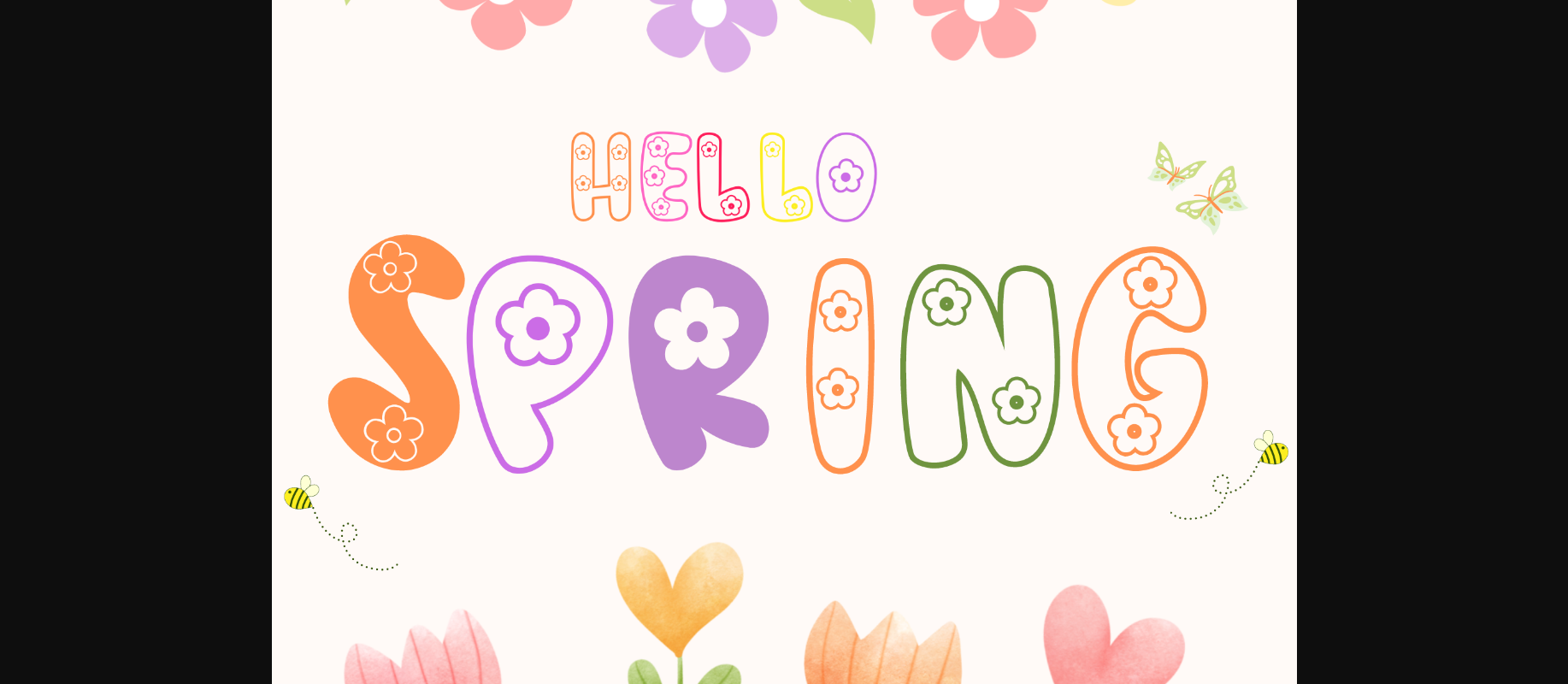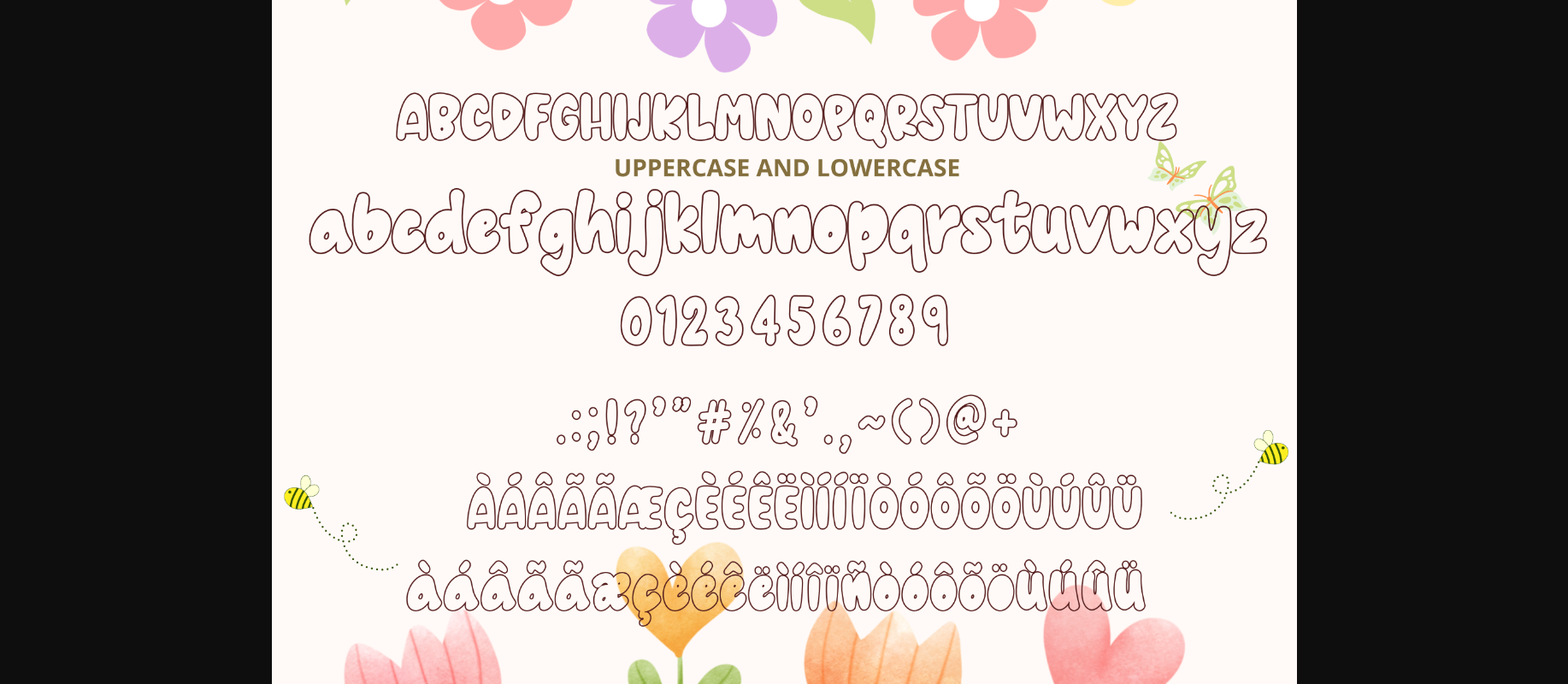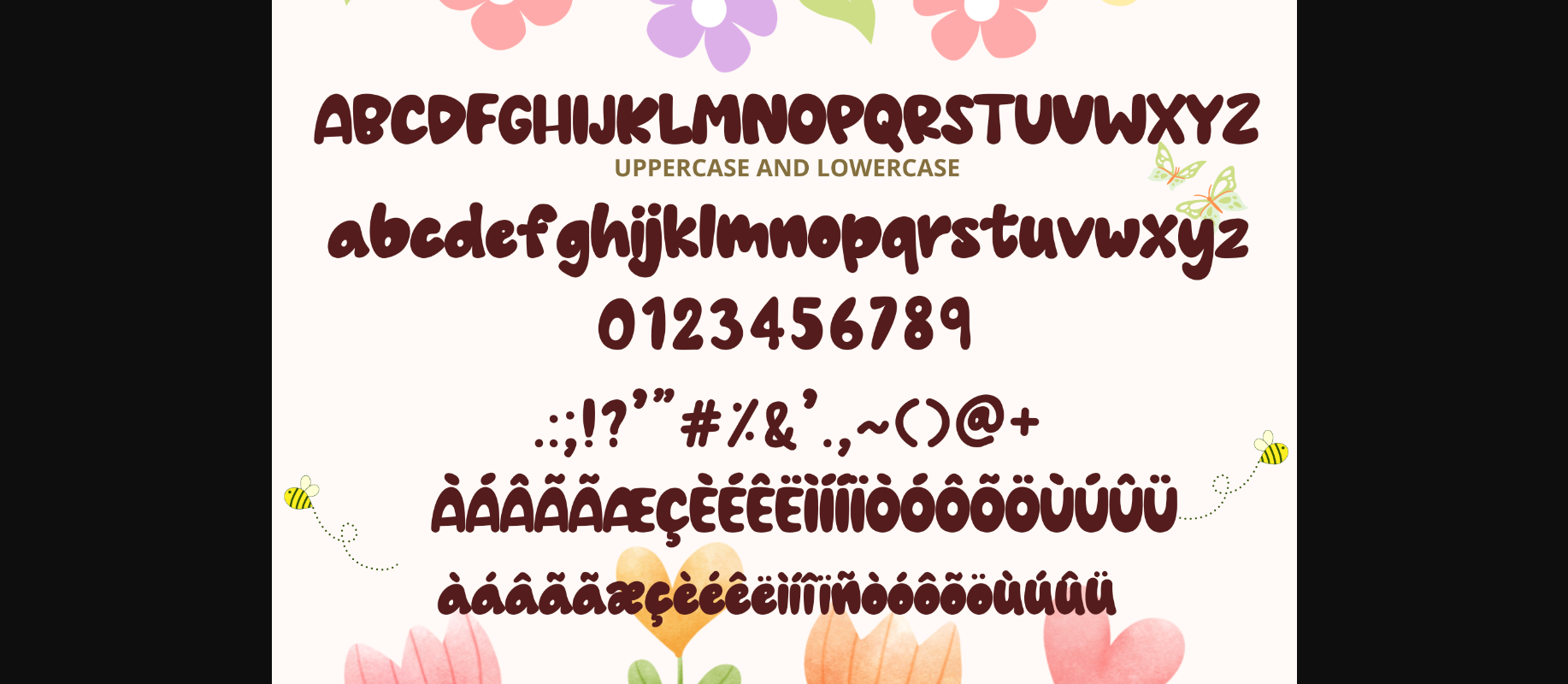
About Hello Spring Font
Hello Spring is a charming and delightful font with enchanting flowers. This adorable font captures the essence of a blooming garden, bringing a touch of nature’s beauty to your designs. Whether you’re creating invitations, greeting cards, or any project that calls for a touch of sweetness add a sprinkle of charm and spring magic. Get ready to immerse yourself in a world of floral joy with this delightful font.